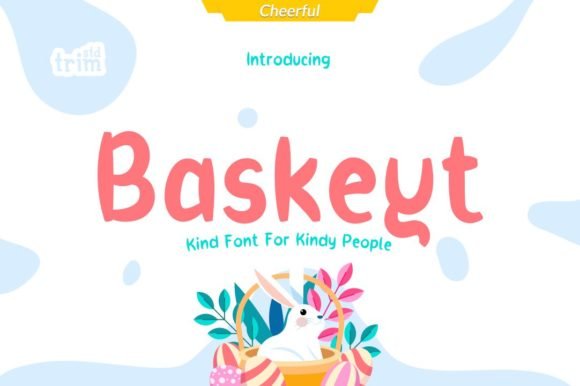
Introduction to Baskeyt Font
Baskeyt is a friendly and playful display font with a unique style.
Get inspired by its adorable charm .
Key Features of Baskeyt Font
Why Choose Baskeyt Font?
Baskeyt Font offers exceptional quality and versatility, making it a valuable addition to your design toolkit. Whether you’re creating for personal projects or commercial use, Baskeyt Font delivers professional results.